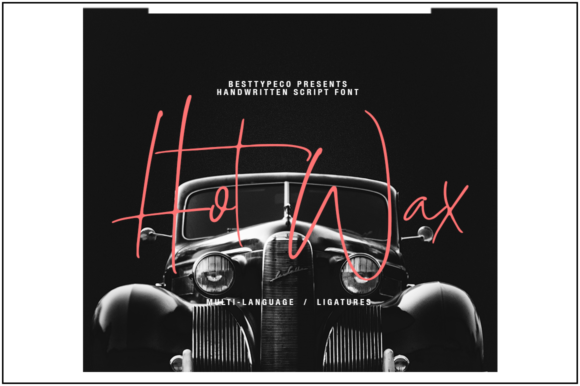
Immerse yourself in the allure of HotWax, a script font that captivates with its slender strokes and graceful curves. Step into a world of elegance where your creativity flourishes effortlessly. With HotWax, transform your wedding photos into timeless masterpieces, leaving a legacy of beauty for generations to come.
Unleash your inner artist and let HotWax guide you in creating awe-inspiring wedding invitations that reflect the love and joy of your special day. Each letter dances across the page, carrying a whisper of romance and enchantment. Craft exquisite stationary art that will leave your loved ones breathless, cherishing every moment immortalized in ink.
Journey into the realm of social media and make a bold statement with HotWax. Its captivating style will elevate your posts, captivating your audience with its undeniable charm. Watch as likes and comments pour in, drawn to the allure of your visually stunning content.
HotWax is more than just a font; it's an experience that takes you on a creative adventure. Embrace its magic and unlock a world of possibilities. With HotWax, your vision knows no bounds.